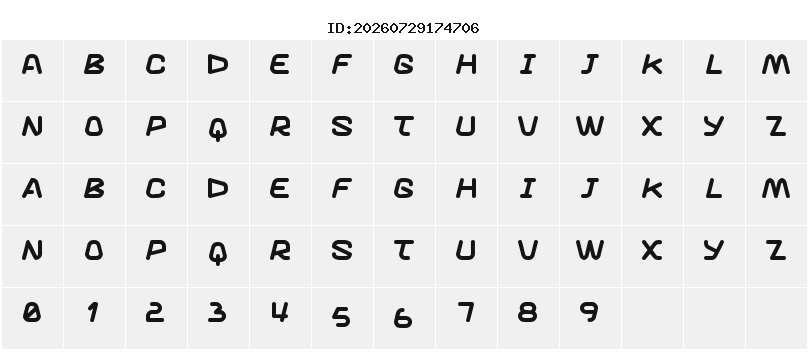
• Font Name: Knuckle sandwich
About Knuckle sandwich.ttf
Knuckle sandwich.ttf is a modern, elegant sans-serif font designed for ultimate readability and visual harmony. Perfect for branding, headlines, web design, and print materials.